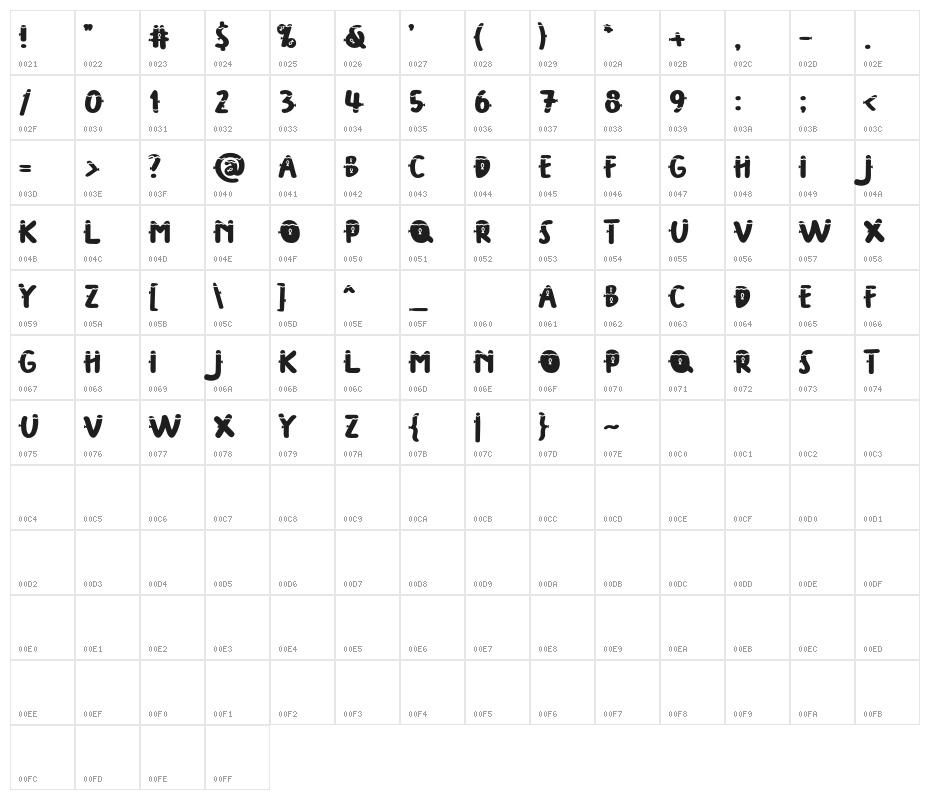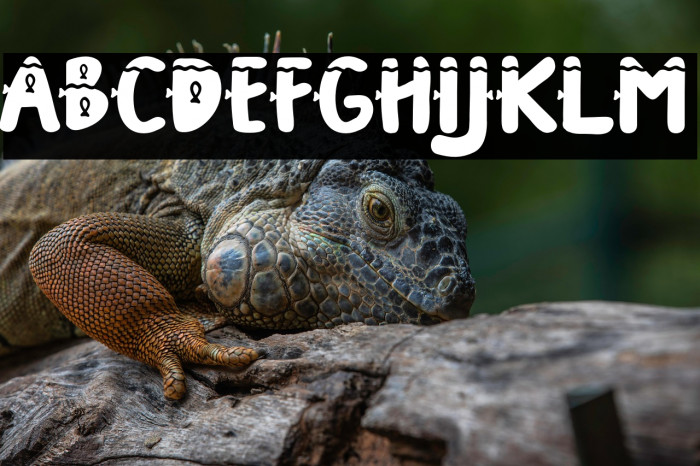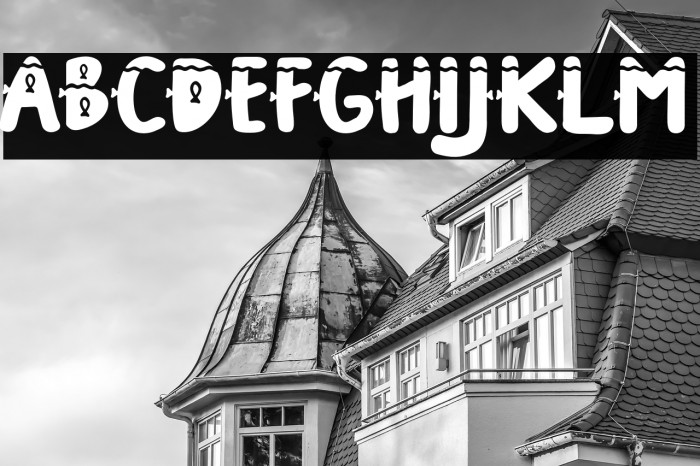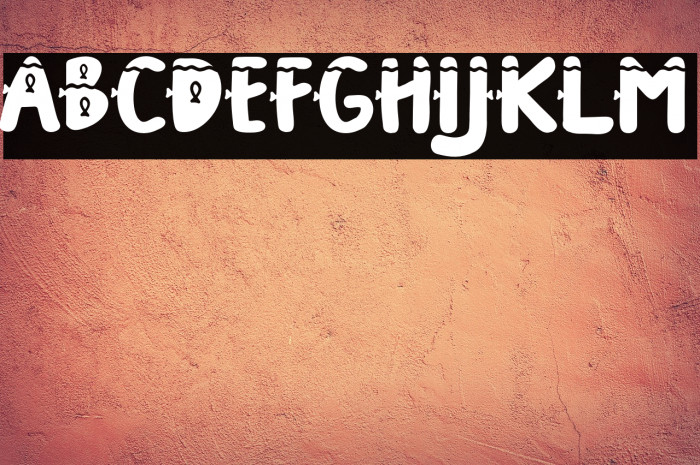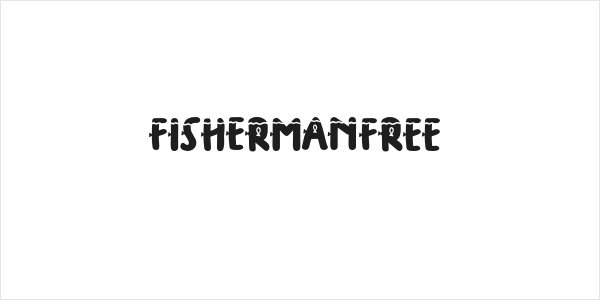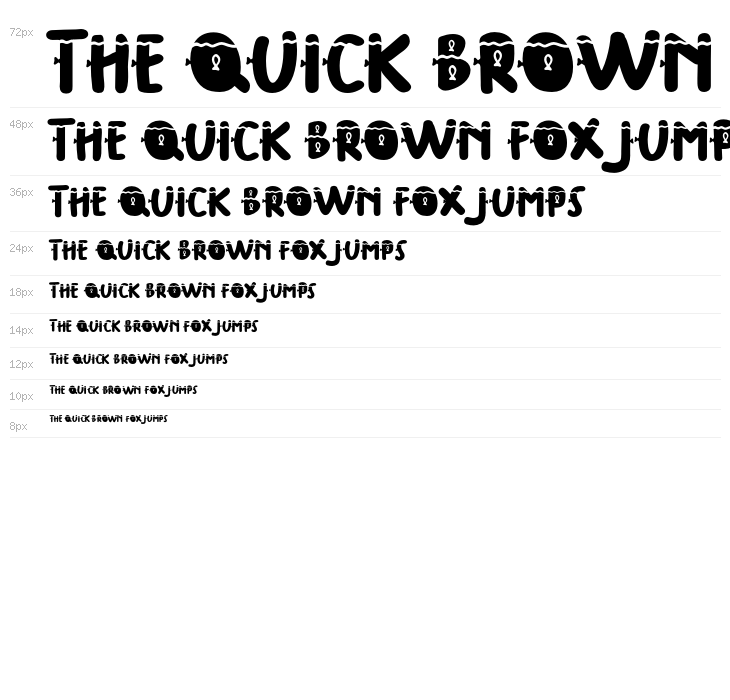
FishermanFREE Font
FishermanFREE Description
This font features a bold and playful design, characterized by its thick, rounded strokes and unique cut-out details reminiscent of fish hooks or nautical elements. The uppercase and lowercase letters maintain a consistent style, with exaggerated curves and a whimsical appearance. Numbers and special characters follow the same design principles, ensuring a cohesive look across all glyphs. The font's distinct style makes it ideal for creative and themed projects, particularly those related to the sea or fishing. Its boldness and decorative elements make it stand out, while the rounded edges add a friendly and approachable feel.
| Use Case | Headlines, Logos, Themed projects |
| Proposed Projects | Ideal for themed posters, children's books, logos for fishing-related businesses, and playful branding materials. |